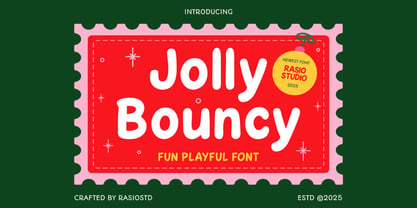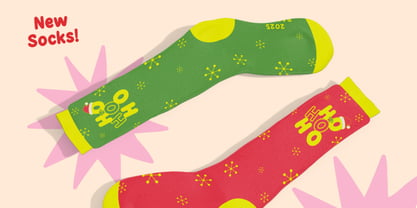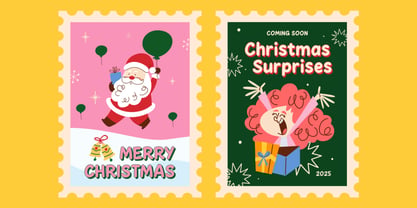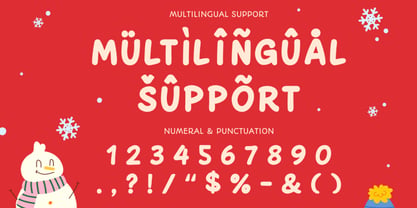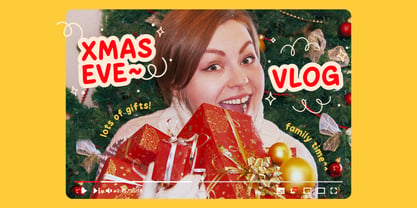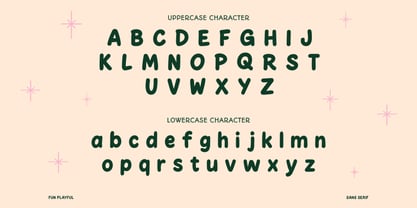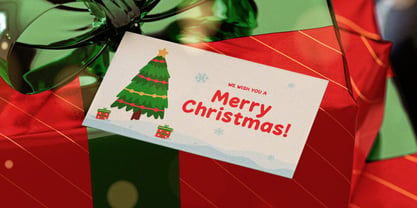
Jolly Bouncy
by Rasio Studio
The Jolly Bouncy Font Family was designed by Fajar Indra and published by Rasio Studio. Jolly Bouncy contains 1 styles. More about this family
Jolly Bouncy is a cheerful sans serif font full of energy and whimsy. With rounded, bouncy letterforms and a friendly hand-drawn vibe, it brings joy and personality to any design. Perfect for kids’ projects, greeting cards, packaging, and playful branding, this typeface radiates warmth and approachability. Complete with uppercase, lowercase, numerals, punctuation, and multilingual support, Jolly Bouncy makes every word feel fun, expressive, and full of life — perfect for designs that need a touch of happiness and charm.